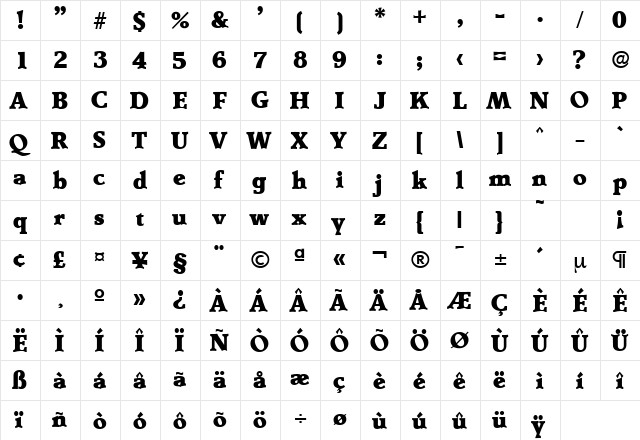
Derringer-Serial-Heavy Regular
Design Context for Derringer-Serial-Heavy Typeface
Derringer-Serial-Heavy offers clean, dependable letterforms without strong stylistic allegiance, making it a practical choice for designers who need flexibility.